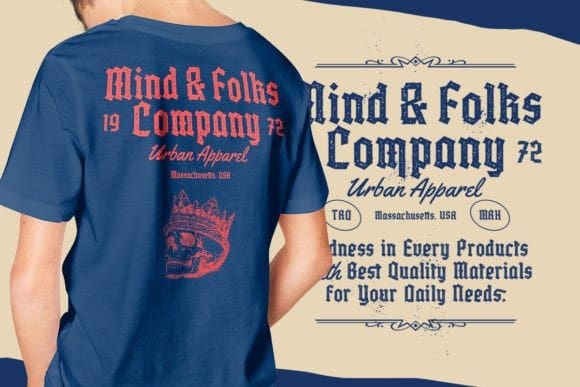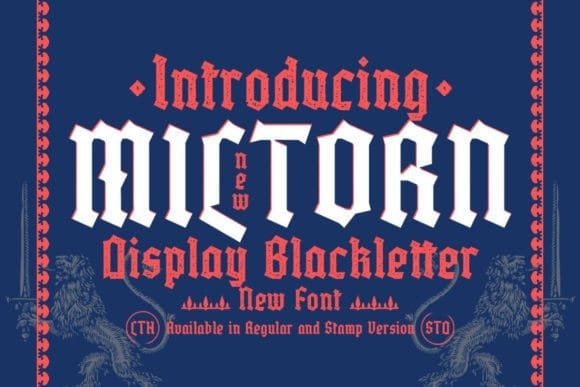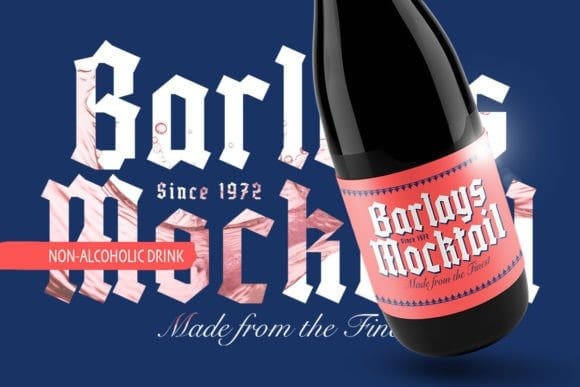
Miltorn Blackletter Font
Miltorn Blackletter Font, a display blackletter typeface in 2 style regular & stamp. It comes with ornament bonus. This type of font perfectly made to be applied especially in logo, and the other various formal forms such as Logo, Clothing, Fashion, Headline, or any type of advertising purpose.